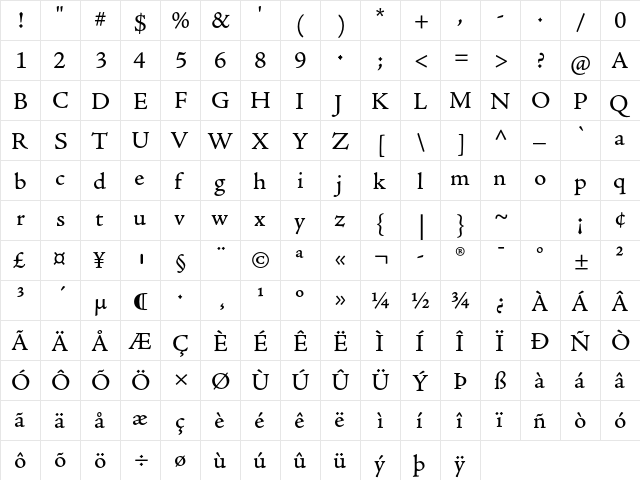
Adobe Jenson Pro Caption Font Preview
Adobe Jenson Pro Caption
Adobe Jenson Pro Caption Font Details
| Style | Caption |
| Designer | Robert Slimbach |
Design Context for Adobe Jenson Pro Typeface
Adobe Jenson Pro is a composed and adaptable typeface that performs quietly and consistently across a wide range of design contexts.
Pro Tip: Use Adobe Jenson Pro in both headline and body roles to test its range before committing to a single application.